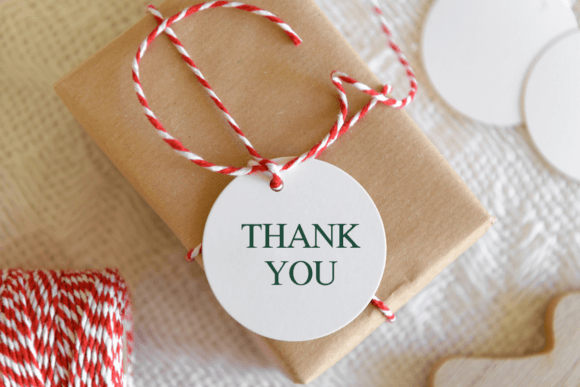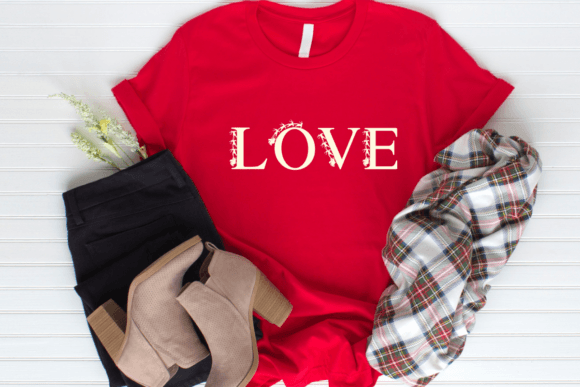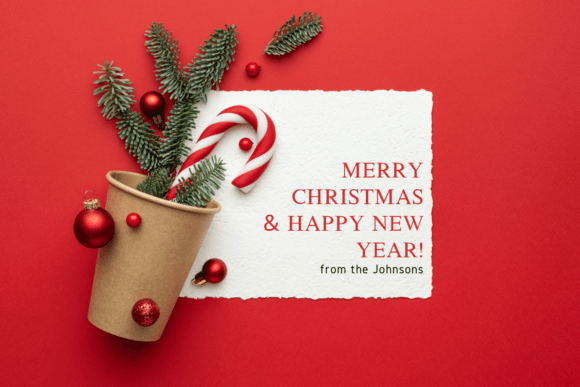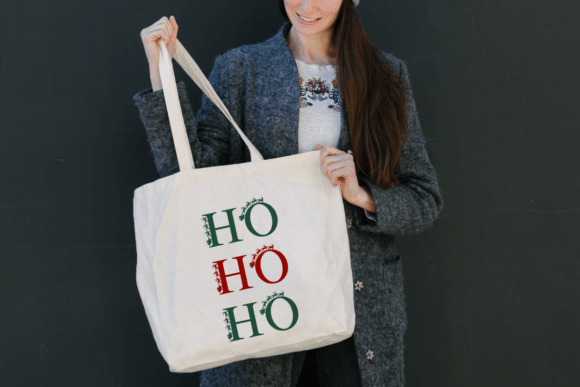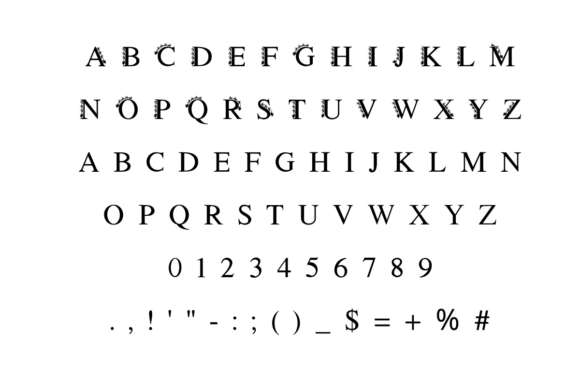
Introduction to Love Santa Font Font
Love SantaClaus is a festive decorative font.
You can use it for taking notes, writing a diary, or making greeting cards However, you can still use it for other designs, such as banners, content, mugs, cards, shirts, stationery, social media posts, and more.
Key Features of Love Santa Font Font
Why Choose Love Santa Font Font?